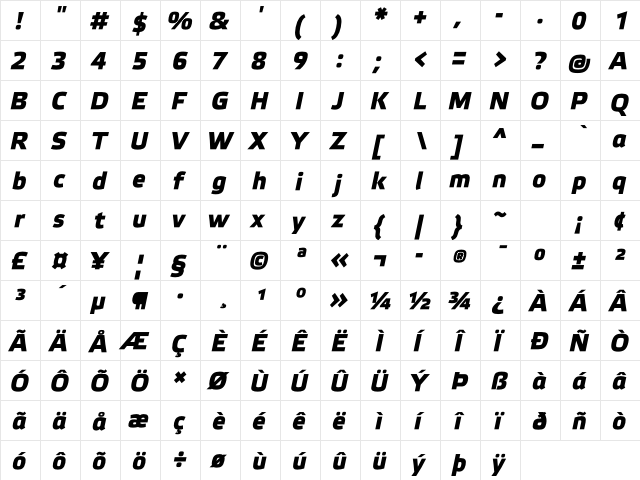
Elektra Medium Pro Bold Italic
| Designer | Frantisek Storm |
Design Context for Elektra Medium Pro Typeface
Elektra Medium Pro is a composed and adaptable typeface that performs quietly and consistently across a wide range of design contexts. The dynamic lean of this cut emphasises speed and emphasis in any layout. The heavy weight commands attention and anchors typographic hierarchies.
Pro Tip: Use Elektra Medium Pro for emphasis, pull quotes, and subheadings where its slanted energy can add rhythm to the layout.